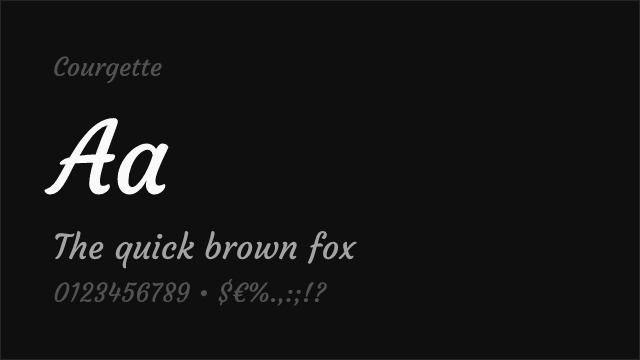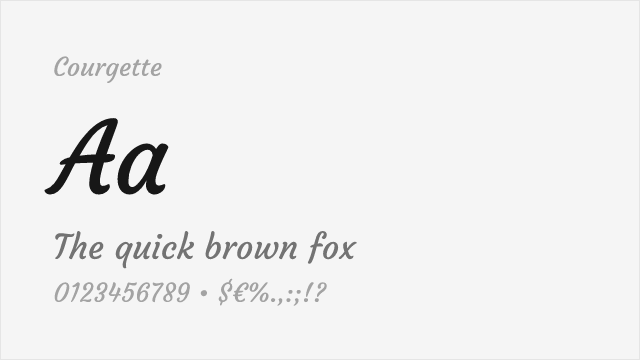
Free Alternatives to Brush Script for Invitations
Looking for a free display font for invitations projects? Brush Script by Linotype is a popular choice, but its licensing cost can be prohibitive. We've curated 4 free alternatives that work well in invitations contexts. Each alternative is scored by visual similarity and contextual relevance, and ships under an open-source license for both personal and commercial use.
Brushy script with 1950s commercial lettering influence and readable unconnected letters
Shares the hand-painted brush energy, though less connected than Brush Script